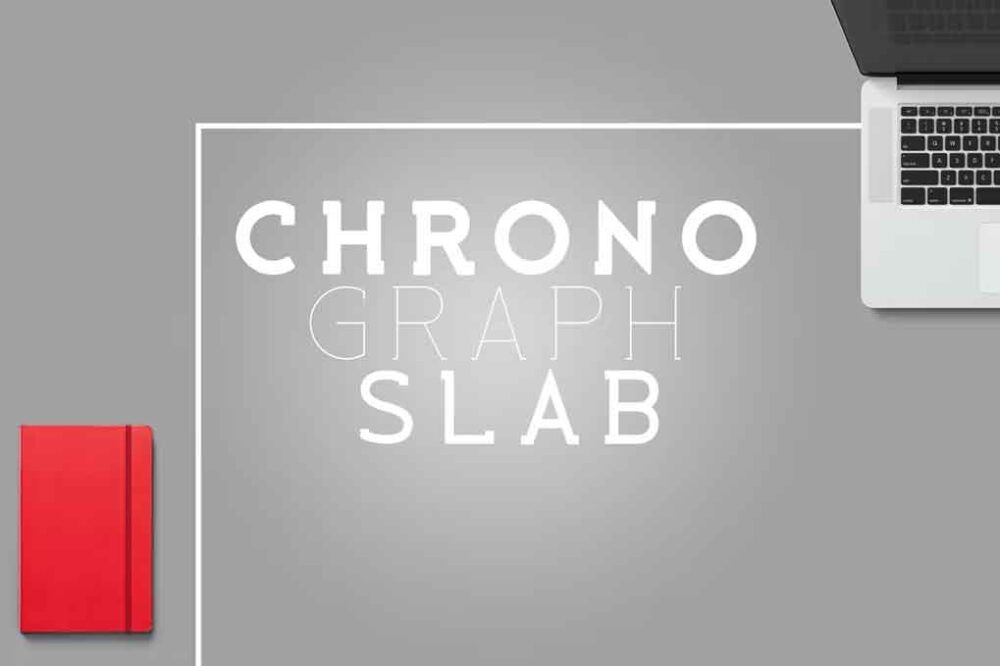
Chronograph Slab Font
Chronograph Slab is clean & vintage look typeface that really nice used for headline, logo, poster and many more. It comes with three styles including in this package : Bold, Regular & Light